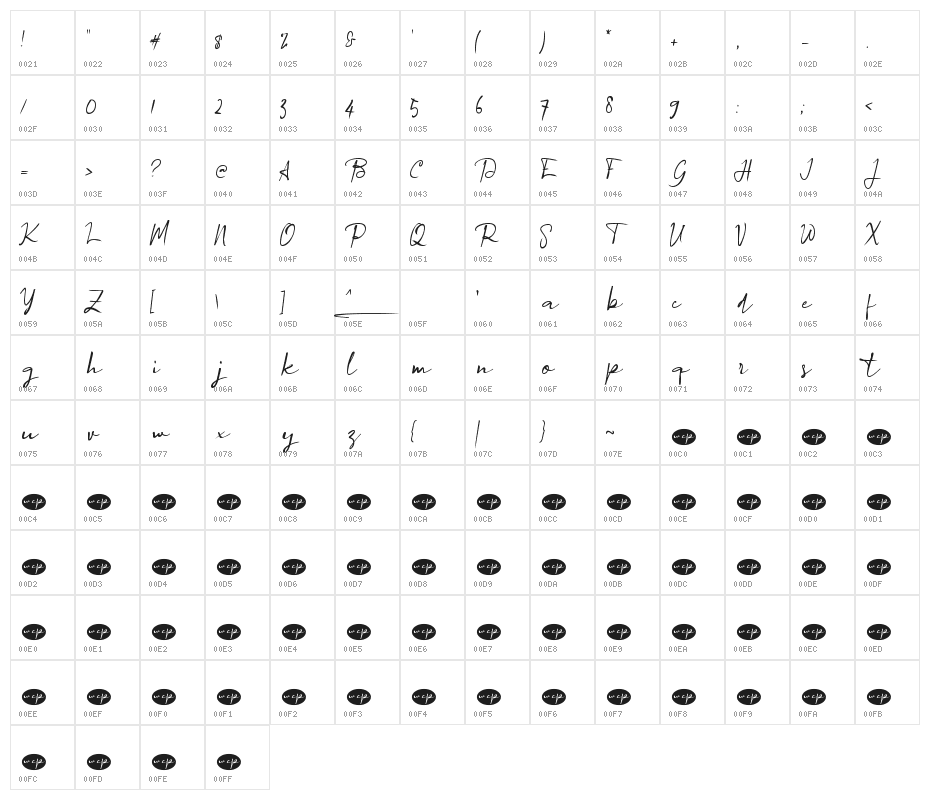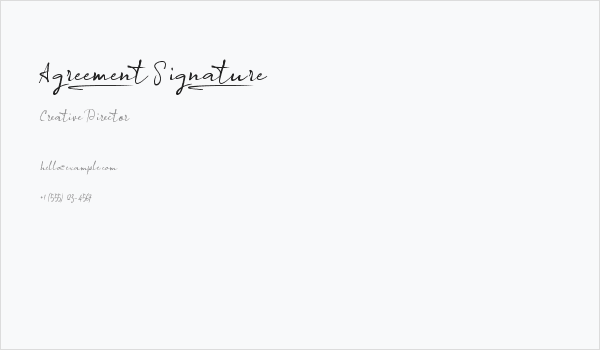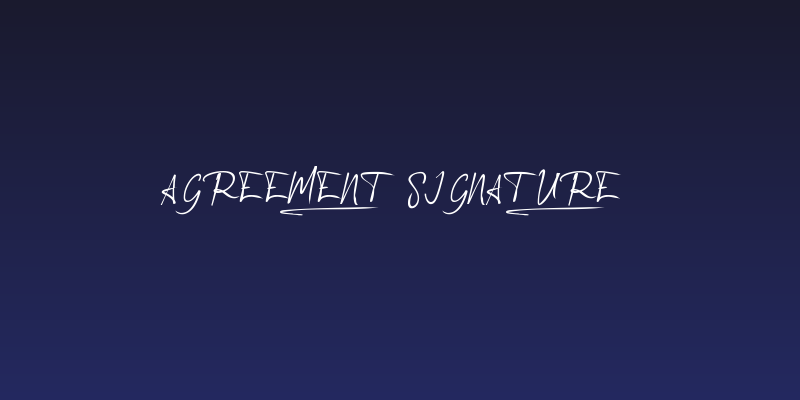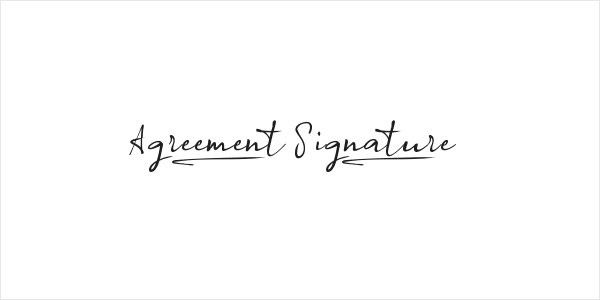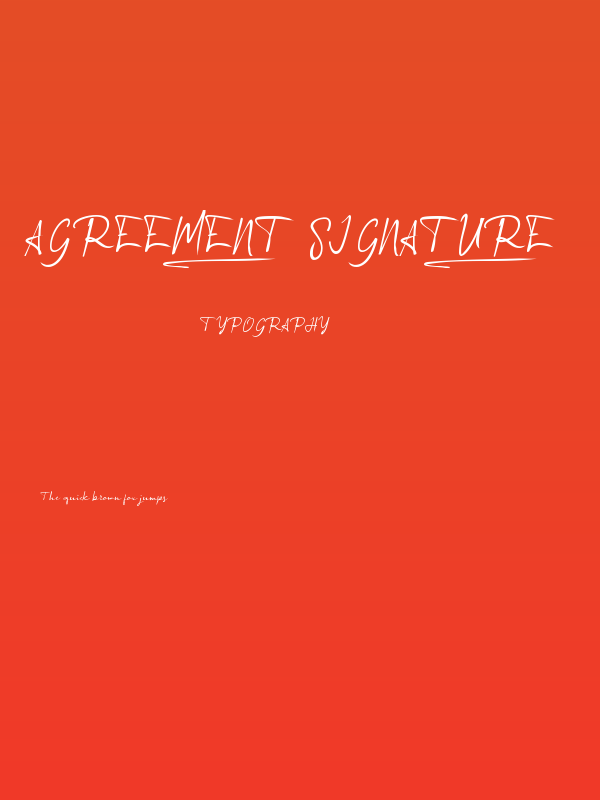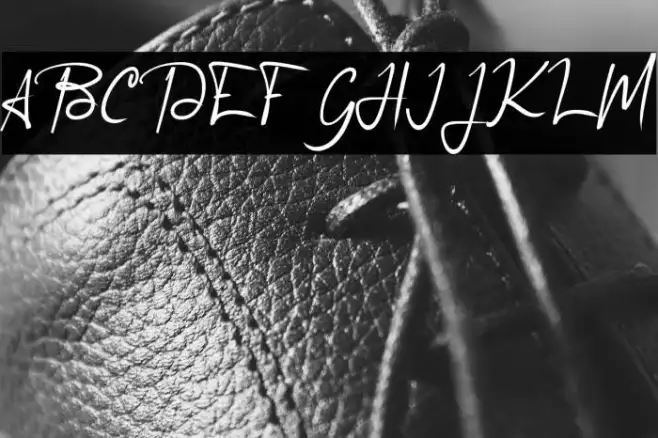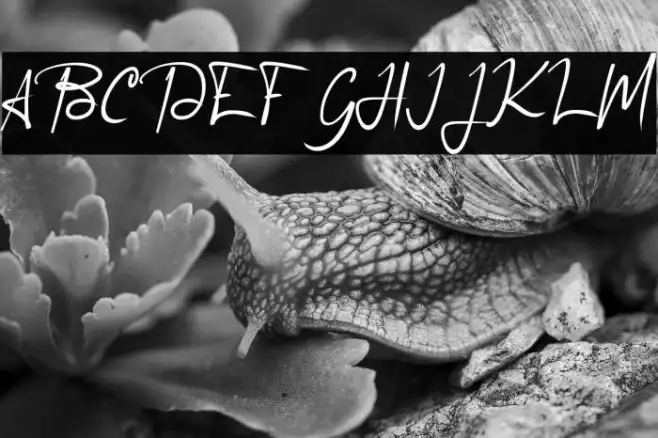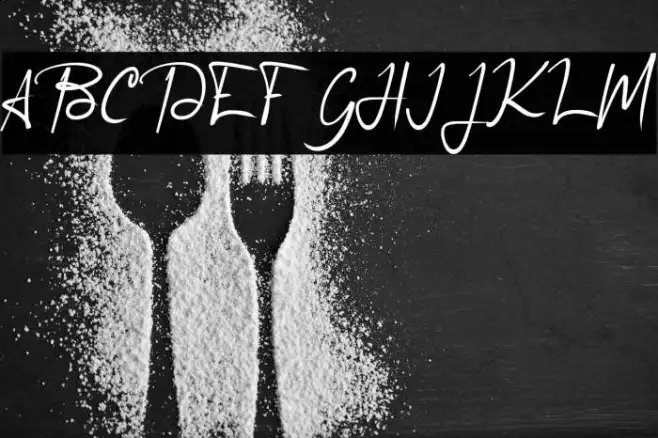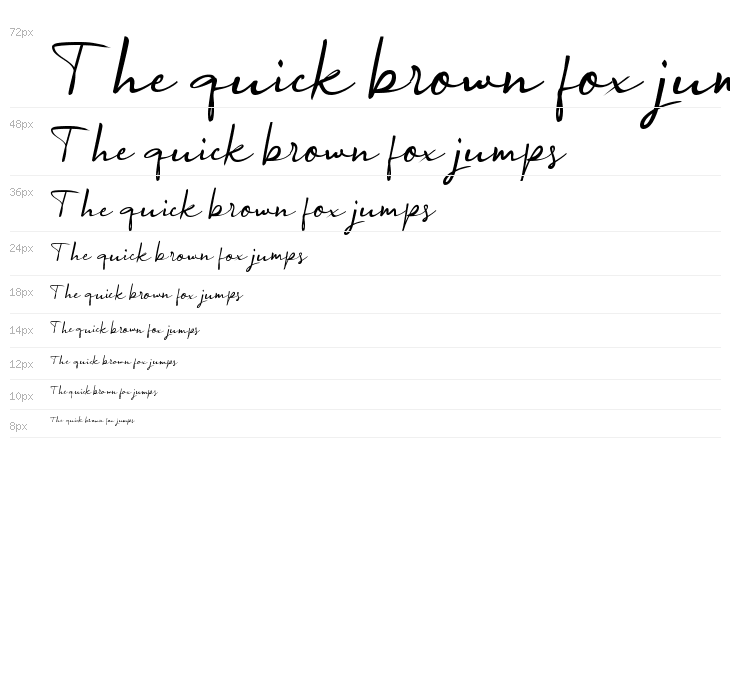
Agreement_Signature_ Font
Agreement_Signature_ Description
This font exudes a handwritten, cursive style that mimics the fluidity and elegance of a personal signature. The uppercase letters are tall and slightly slanted, giving a sense of movement and grace. The lowercase letters maintain a consistent flow, with some characters featuring unique loops and swirls that add a touch of personality. The numerals are clear and legible, matching the overall style with slight variations in stroke width. Special characters are thoughtfully designed to complement the alphabet, ensuring a cohesive look across all text. This font is perfect for projects that require a personal touch, such as invitations, greeting cards, or branding materials that aim to convey elegance and sophistication.
| Overall Style | Elegant, Personal, Handwritten |
| Proposed Projects | Ideal for wedding invitations, personal branding, greeting cards, and elegant packaging. |